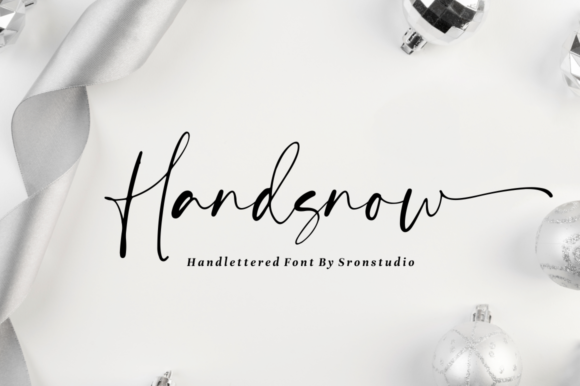
Discover the Magic of Handsnow Font
Have you ever been struck by a creative idea at the most unexpected moment – perhaps while strolling through a snowy forest or sipping coffee in a cozy café? Those moments are what make design truly special. As designers, we’re always on the lookout for ways to capture the essence of our ideas and bring them to life in a unique and captivating way.
That’s where Handsnow Font comes in – a dreamy and beautiful handwritten font that’s designed to help you express your creativity in a relaxed and unique way. Whether you’re working on a branding project, crafting a social media post, or designing a book cover, Handsnow Font has the potential to elevate your work to new heights.
As a valuable addition to any designer’s toolkit, Handsnow Font offers a level of sophistication and elegance that’s hard to find in other fonts. Its unique characteristics and style make it an ideal choice for designers who want to stand out from the crowd and create truly memorable designs.
Key Features of HandSnow Font
- Size: The font family includes 6 different font weights (Thin, Light, Regular, Medium, Bold, and Extra Bold), providing flexibility for various design applications.
- Unique Characteristics: HandSnow Font features a unique, hand-drawn style with intricate details and subtle imperfections, giving it a personal and artistic touch.
- Language Support: The font supports a wide range of languages, including Latin, Cyrillic, and Greek alphabets, making it a versatile choice for international designs.
Handsnow Font Review
I recently had the chance to play around with the Handsnow Font, and I must say it’s an interesting addition to any design project. ✨ The overall aesthetic is modern and sleek, with a unique blend of cursive and sans-serif elements. The font is perfect for creating a touch of sophistication and elegance in your designs.
- ✨ The font’s flexibility is a major plus, allowing for a wide range of applications from headings to body text.
- ✨ The Handsnow Font is highly legible, even at smaller font sizes, making it ideal for digital use.
- ✨ The font’s unique style is sure to grab attention and set your designs apart from the crowd.
However, there are a few limitations to keep in mind ⚠️. The font’s bold and italic weights can sometimes feel a bit inconsistent, and the font may not be the best choice for projects that require a lot of fine-tuning.
Overall, I’d say the Handsnow Font is a solid addition to any designer’s toolkit. While it may not be perfect, its unique style and flexibility make it a great choice for a wide range of projects.
Getting the Most Out of Handsnow Font
For the best results, use Handsnow Font in conjunction with bold or italic styles to create a unique and eye-catching look. Experiment with different font sizes and colors to add depth and emphasis to your text.
Handsnow Font is ideal for use in creative projects, such as invitations, posters, and social media graphics. It’s also a great choice for adding a touch of whimsy to business presentations and reports.